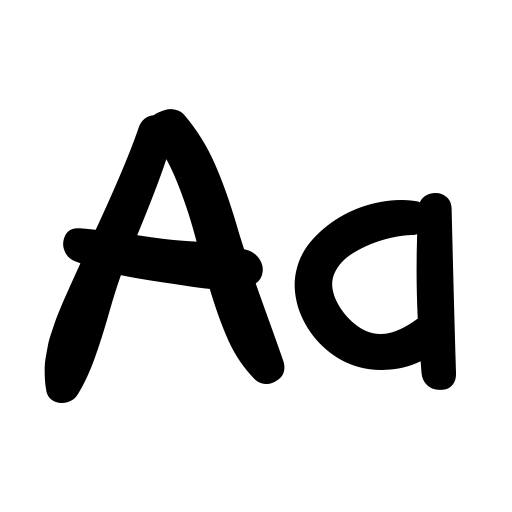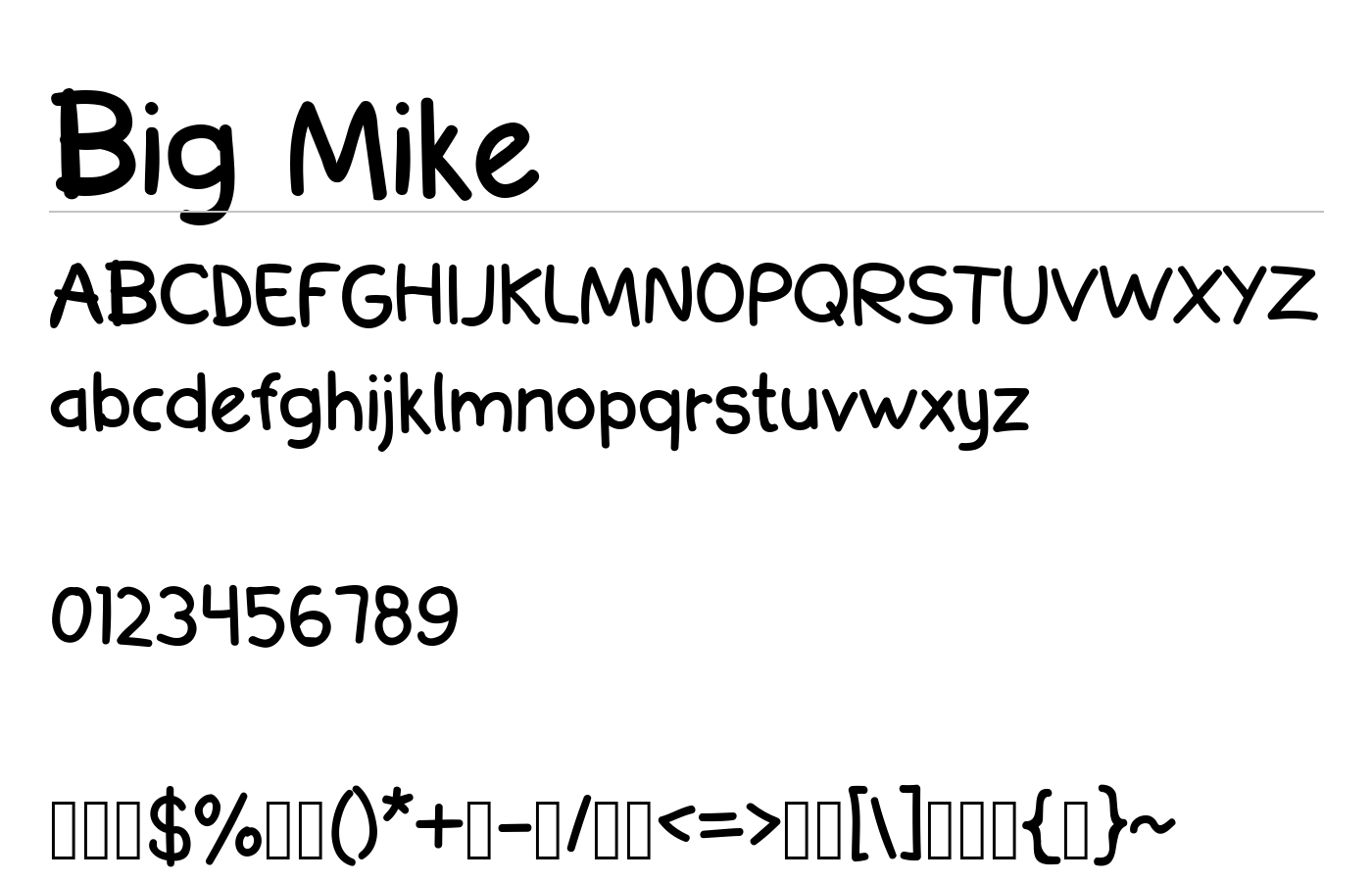
Big Mike is a playful and casual sans serif font with a handwritten feel, featuring rounded, slightly irregular letterforms that convey warmth and friendliness. Its medium weight and balanced proportions make it approachable and easy to read, ideal for informal designs such as children's books, fun branding, or creative projects. This font works well where a relaxed, personal touch is needed to invite connection and lightheartedness.
Big Mike Font
About Big Mike Font
| Font family | Big Mike Font |